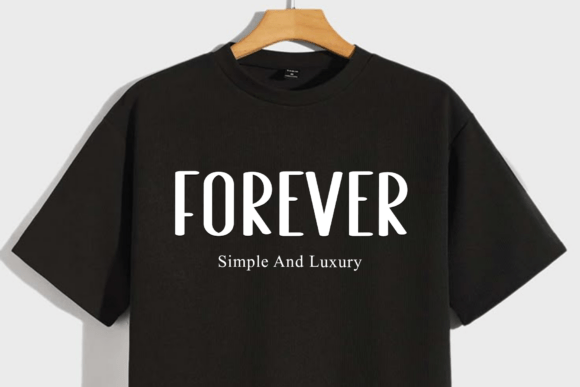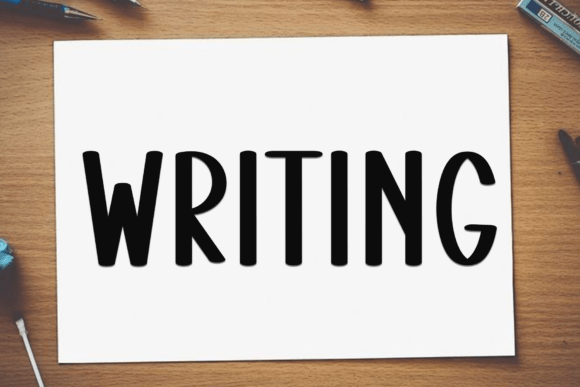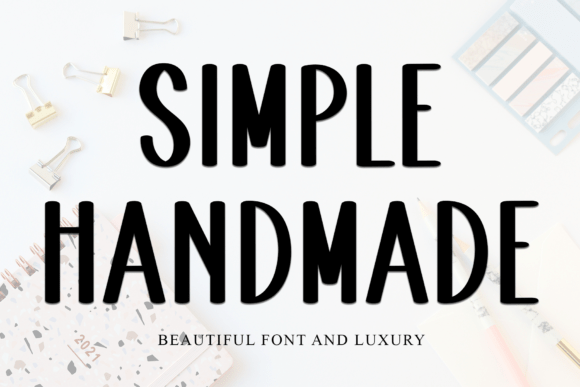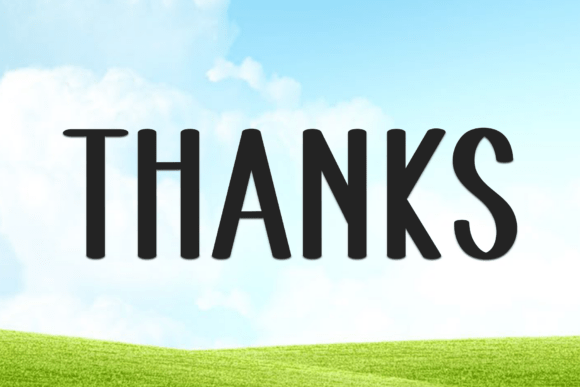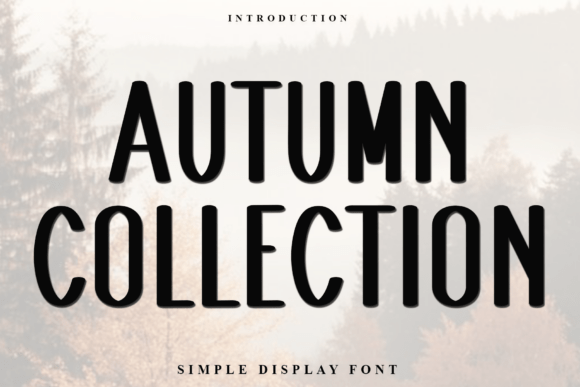
Introducing Autumn Collection Font: A Simple yet Elegant Display Font for Seasonal Designs
As the seasons change and autumn leaves start to fall, designers and crafters are on the lookout for fonts that capture the essence of this cozy time of year. If you’re searching for a font that embodies the quiet elegance of fall while remaining versatile enough for year-round use, look no further than the Autumn Collection Font. This simple and modern display font is designed to bring a touch of warmth and character to your designs, making it perfect for seasonal projects, branding, packaging, invitations, social media graphics, and editorial titles.
A Clean yet Organic Design
Autumn Collection Font boasts a clean yet organic design that sets it apart from other display fonts. Its tall, narrow letterforms are softened by rounded edges and subtle variations, giving it a natural flow that feels approachable and versatile. This unique blend of minimalism and charm makes it an excellent choice for designers who want to add a touch of sophistication to their work without sacrificing readability.
One of the standout features of Autumn Collection Font is its exceptional readability. Even at smaller sizes, the font remains clear and legible, making it perfect for use in a variety of applications, from social media graphics to editorial titles. Additionally, the font’s warm and inviting tone makes it an excellent choice for cozy branding and packaging designs.
Ideal for Seasonal Projects and Beyond
While Autumn Collection Font is perfectly suited for seasonal projects, its versatility makes it an excellent choice for year-round use. The font’s balanced design ensures that it won’t overwhelm or dominate your design, making it an excellent choice for a wide range of applications, including:
- Seasonal projects: Add a touch of autumnal charm to your designs with a font that’s specifically designed to capture the essence of the season.
- Cozy branding: Create warm and inviting brand identities that resonate with your audience.
- Packaging: Add a touch of elegance and sophistication to your packaging designs.
- Invitations: Create beautiful and inviting invitations that set the tone for any occasion.
- Social media graphics: Elevate your social media graphics with a font that’s both stylish and readable.
- Editorial titles: Add a touch of sophistication to your editorial titles with a font that’s designed to make a statement.
Comprehensive Character Set
Autumn Collection Font includes a comprehensive character set that provides designers with a wide range of creative possibilities. The font features:
- Uppercase letters: Perfect for titles, headings, and emphasis.
- Lowercase letters: Ideal for body text, descriptions, and captions.
- Numerals: Essential for any design project, from pricing tables to dates.
- Punctuation: Comprehensive punctuation set for clear and effective communication.
- Extended characters: Expand your design possibilities with a range of special characters and accents.
Autumn Collection Font is a simple yet elegant display font that’s perfect for designers and crafters looking to add a touch of warmth and character to their designs. Its clean yet organic design, exceptional readability, and comprehensive character set make it an excellent choice for a wide range of applications, from seasonal projects to year-round use. Whether you’re creating cozy branding, packaging, invitations, social media graphics, or editorial titles, Autumn Collection Font is the perfect choice for designers who want to capture the quiet elegance of fall while staying flexible enough for creative use all year round.